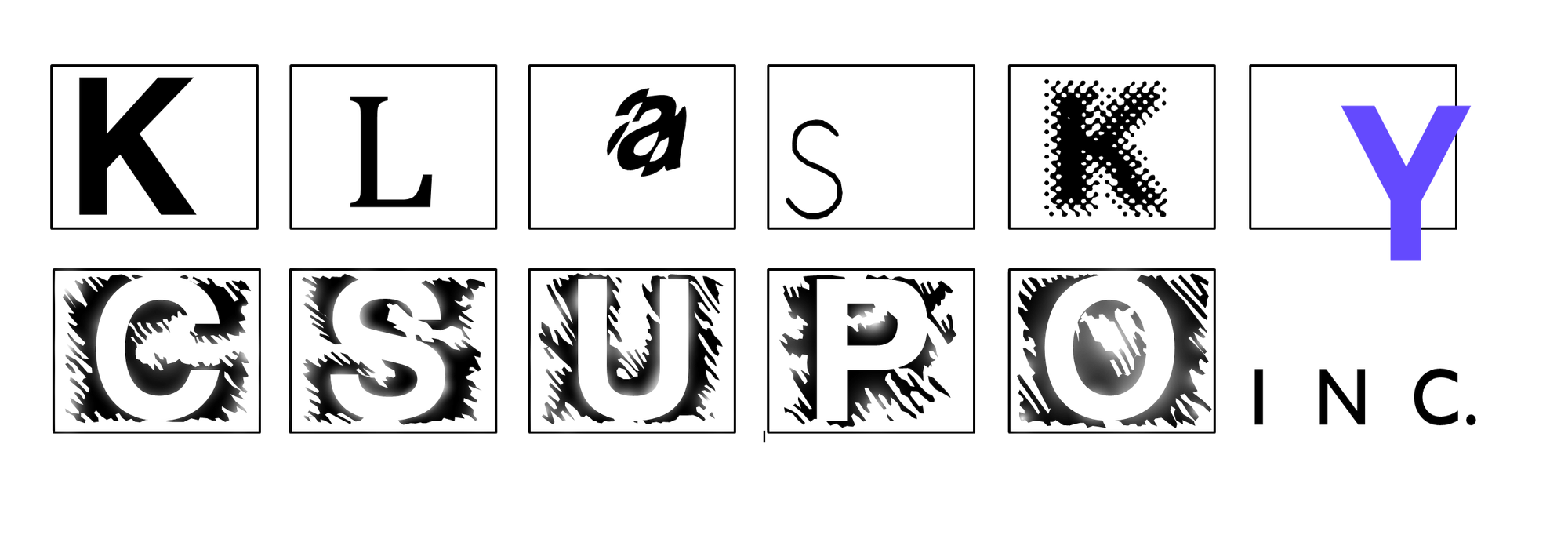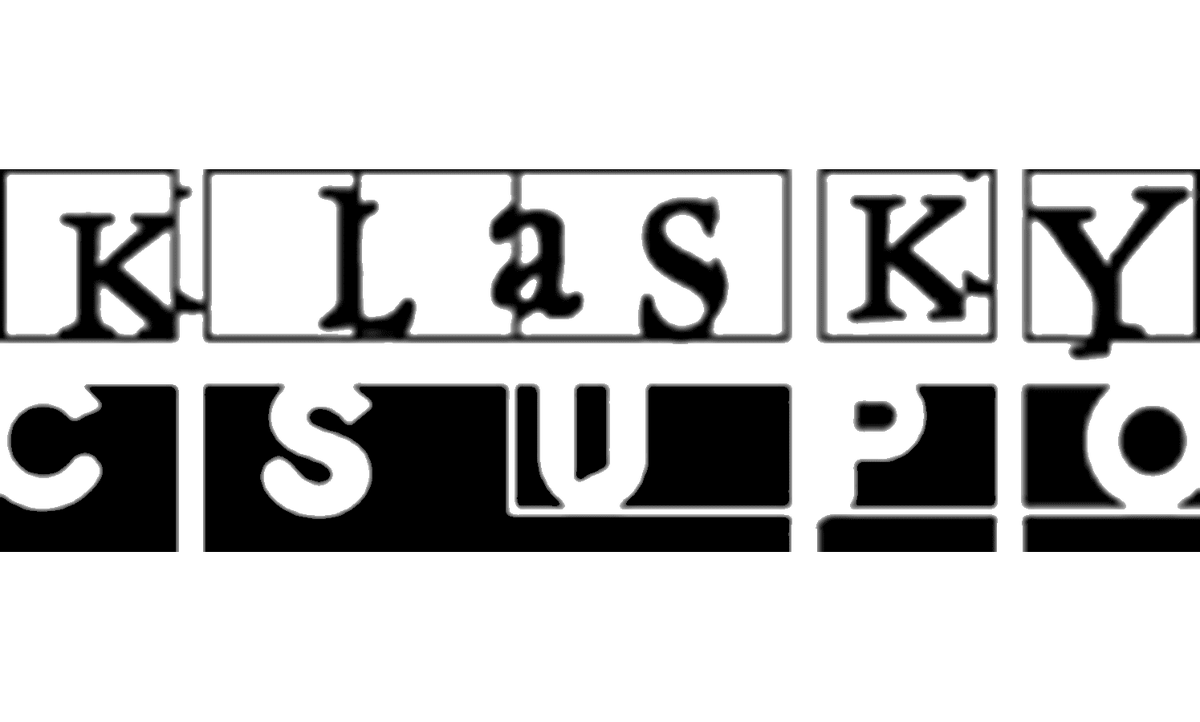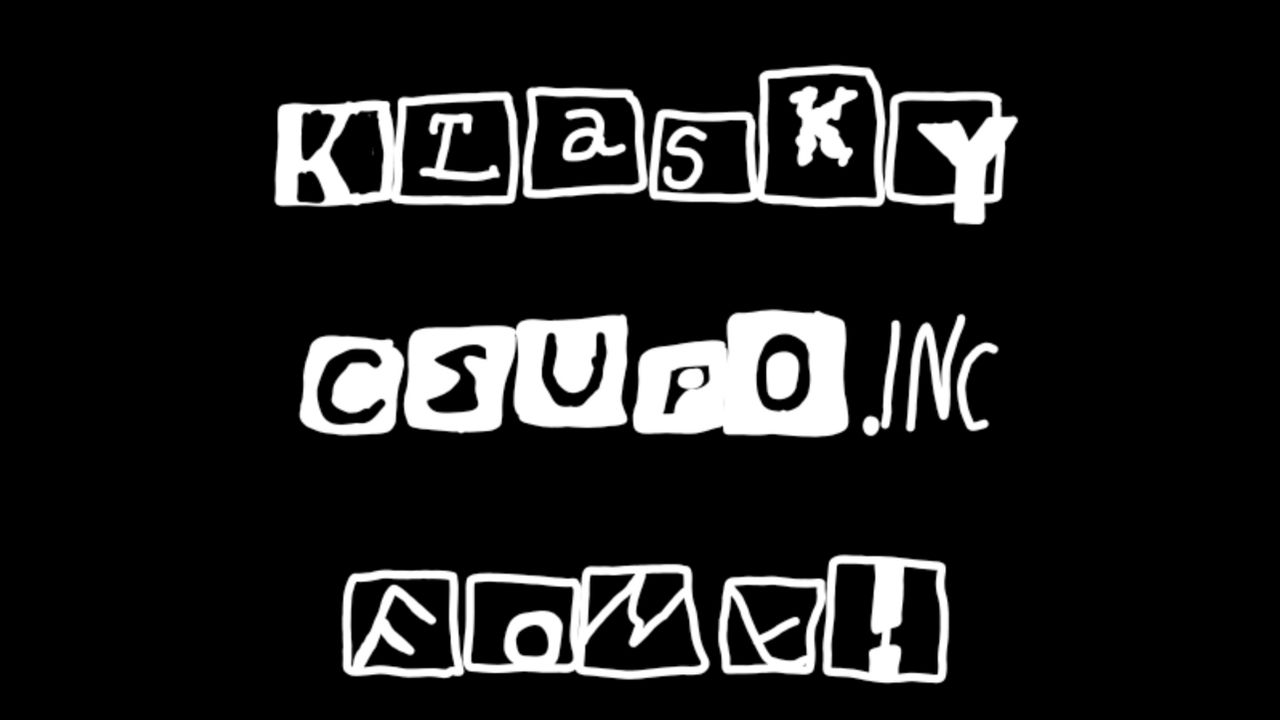
Klasky Csupo Logo Font - Klaskycsupo font family designed by unknown designer has a total of 1 different styles. Download klasky csupo new font from free cdn or use it on your website as webfont. The klasky csupo font is highly versatile, fitting various contexts to infuse creativity and fun:. Klaskycsupo version 001.000 font (font family name: